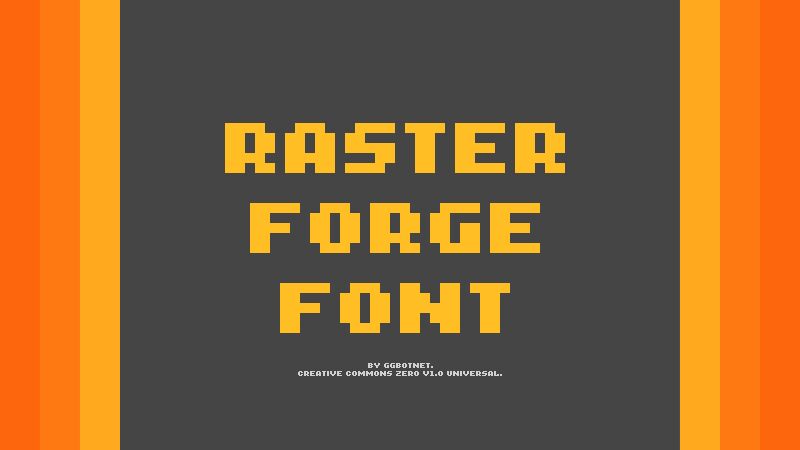
Raster Forge Regular
Raster Forge font by GGBotNet is a bold bitmap font with an expanded width. Its pixelated, angular, and geometric forms create a uniform structure that speaks of both technology and modern aesthetics. Strong in its presence, the font skillfully uses simple elements, giving it intriguing charm and beauty to captivate readers.
Connect with your audience through Raster Forge in web design projects, prints, headlines, posters or flyers. Pair it with graphic logos used on packaging to communicate strength when promoting supplements for men or athletic products for sport professionals.